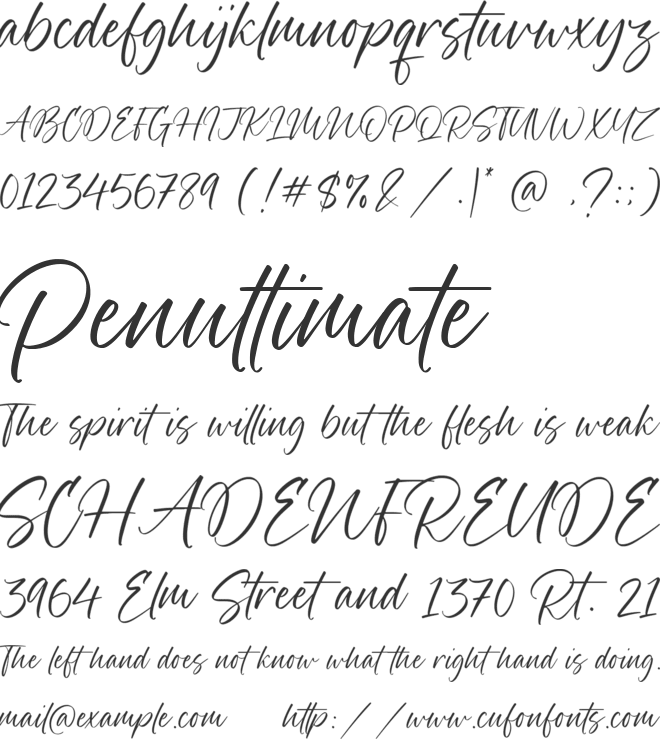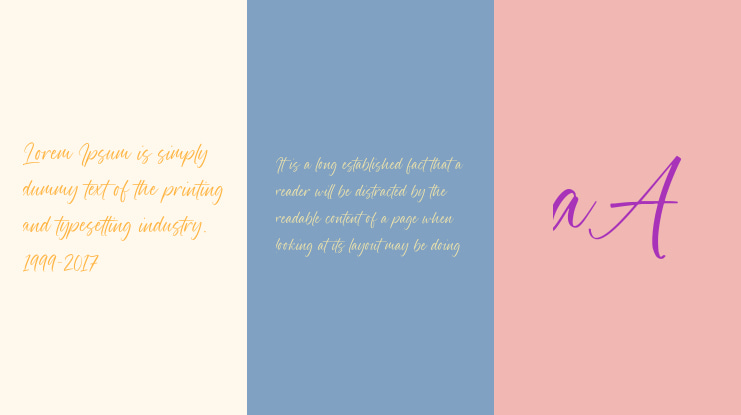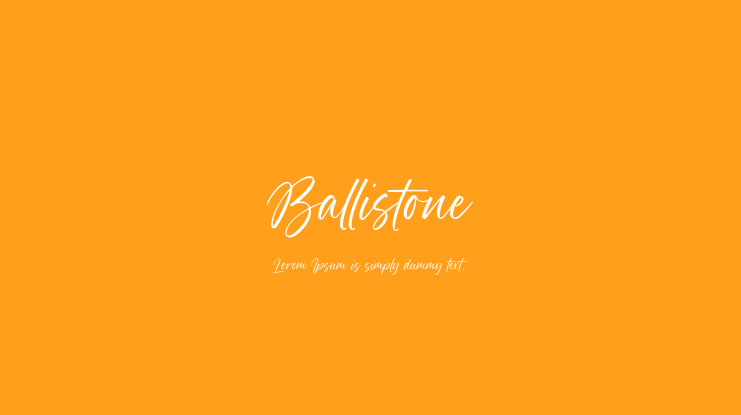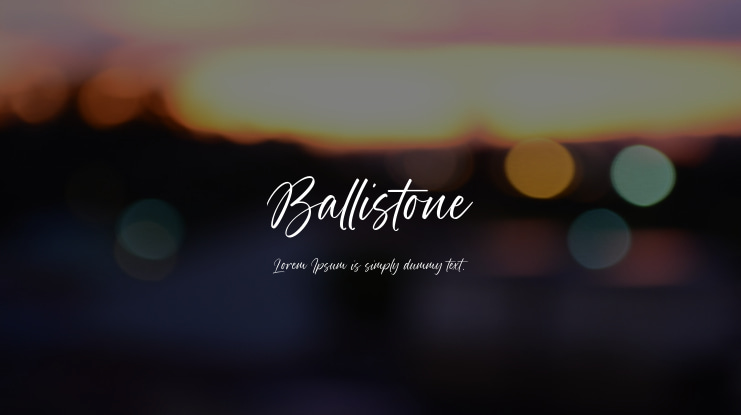
Ballistone Font
Introduced by Timur type
Proudly Present Ballistone
Ballistone is a Handwritten script font that is modern and fresh, and will bring a warm and inviting feel to your business. Take advantage of the fonts and experience the magic for yourself.
Ballistone is perfect for product packaging, branding project, megeenazine, social media, wedding, or just used to express words above the background.
-Full Set of standard alphabet and punctuation
– Ballistone also multilingual support.
– extra set ligature